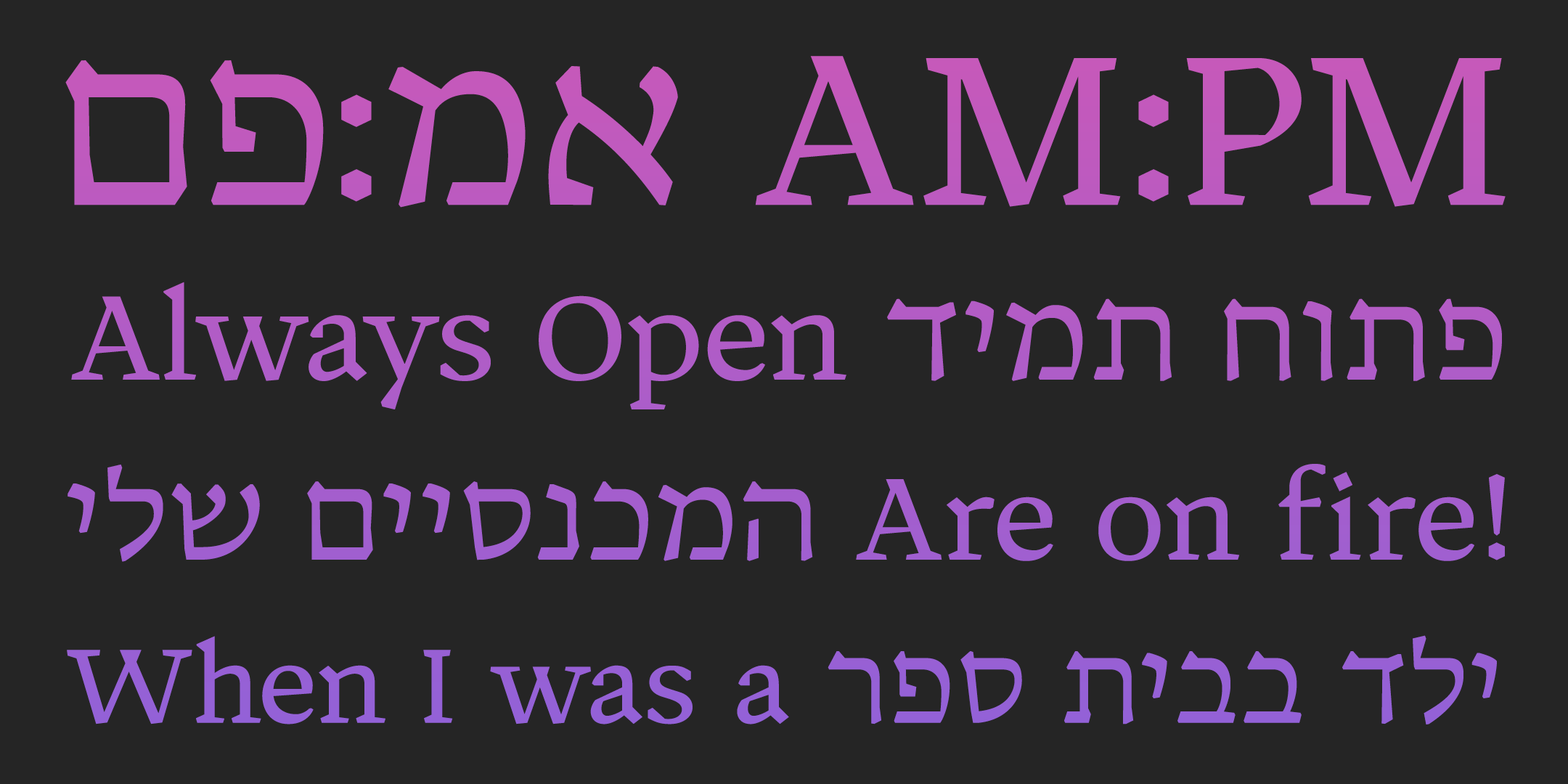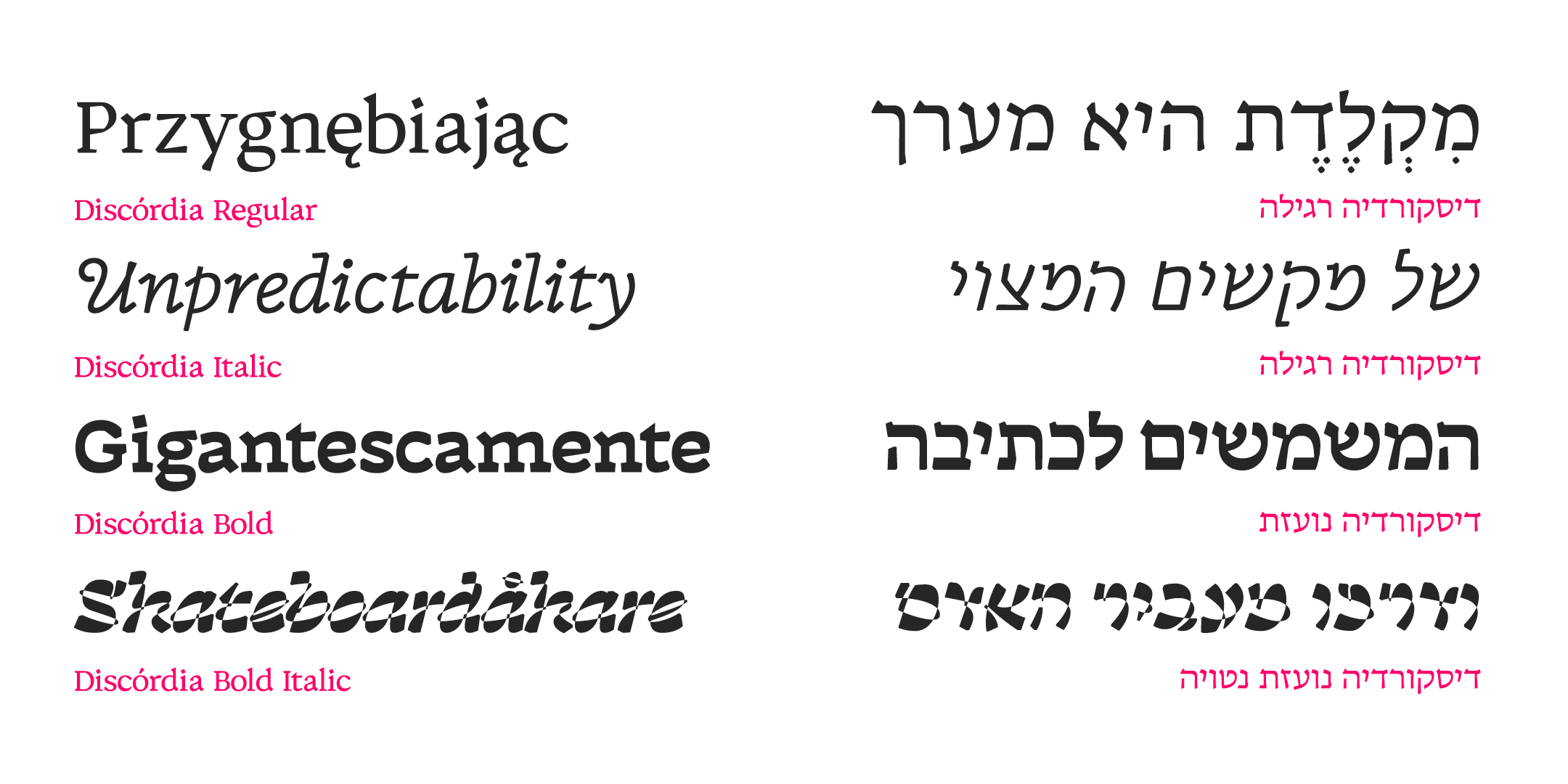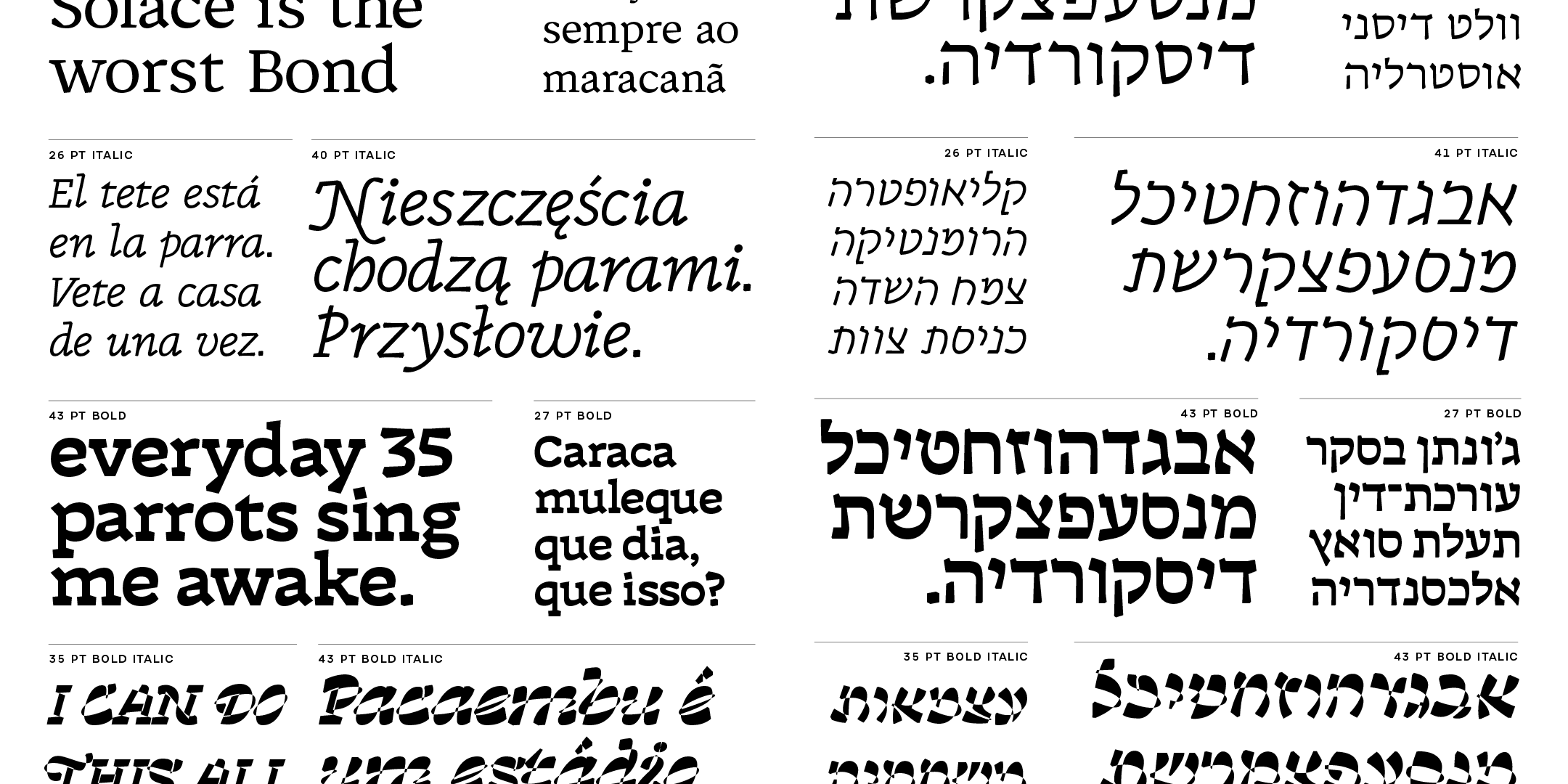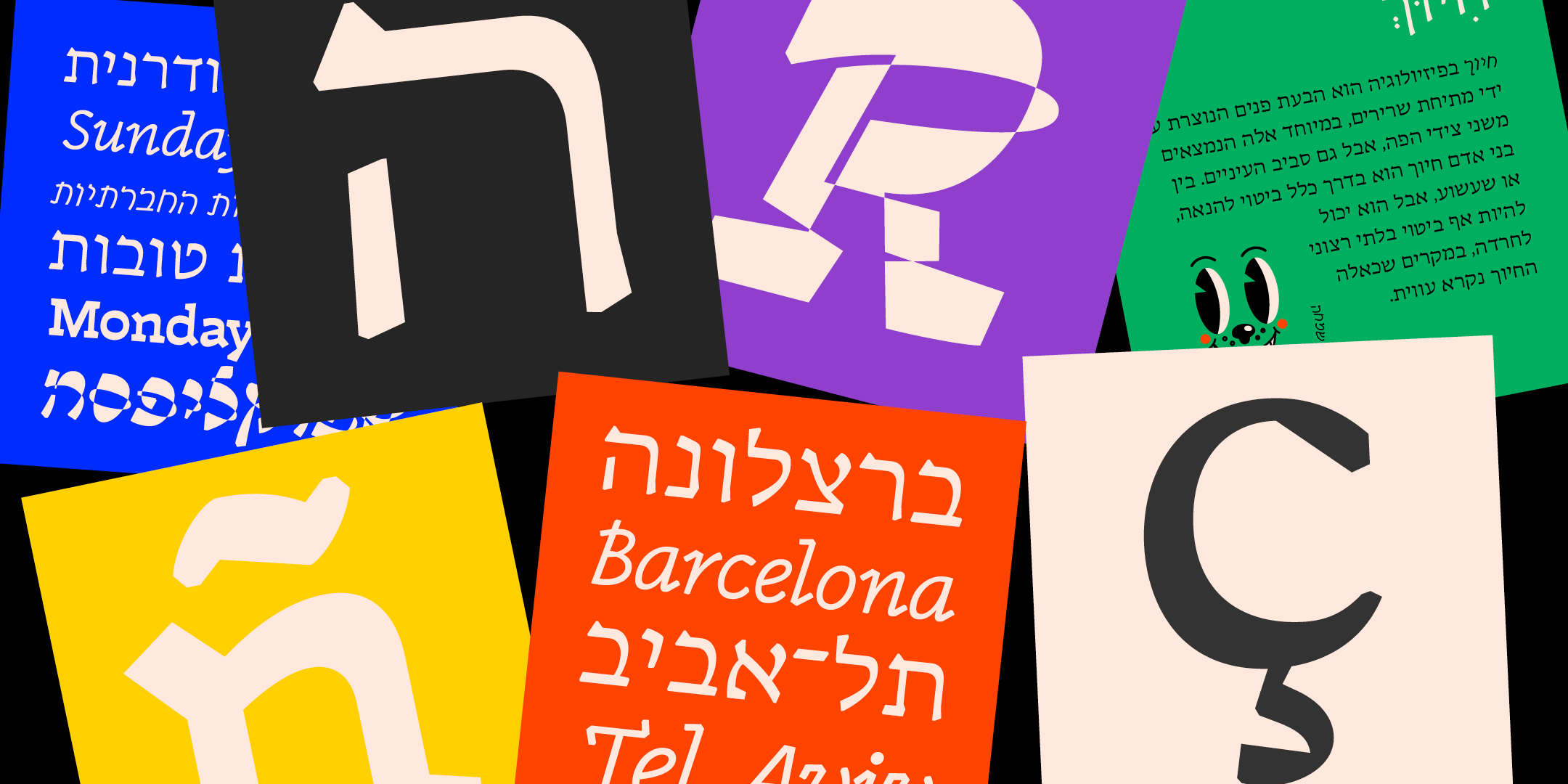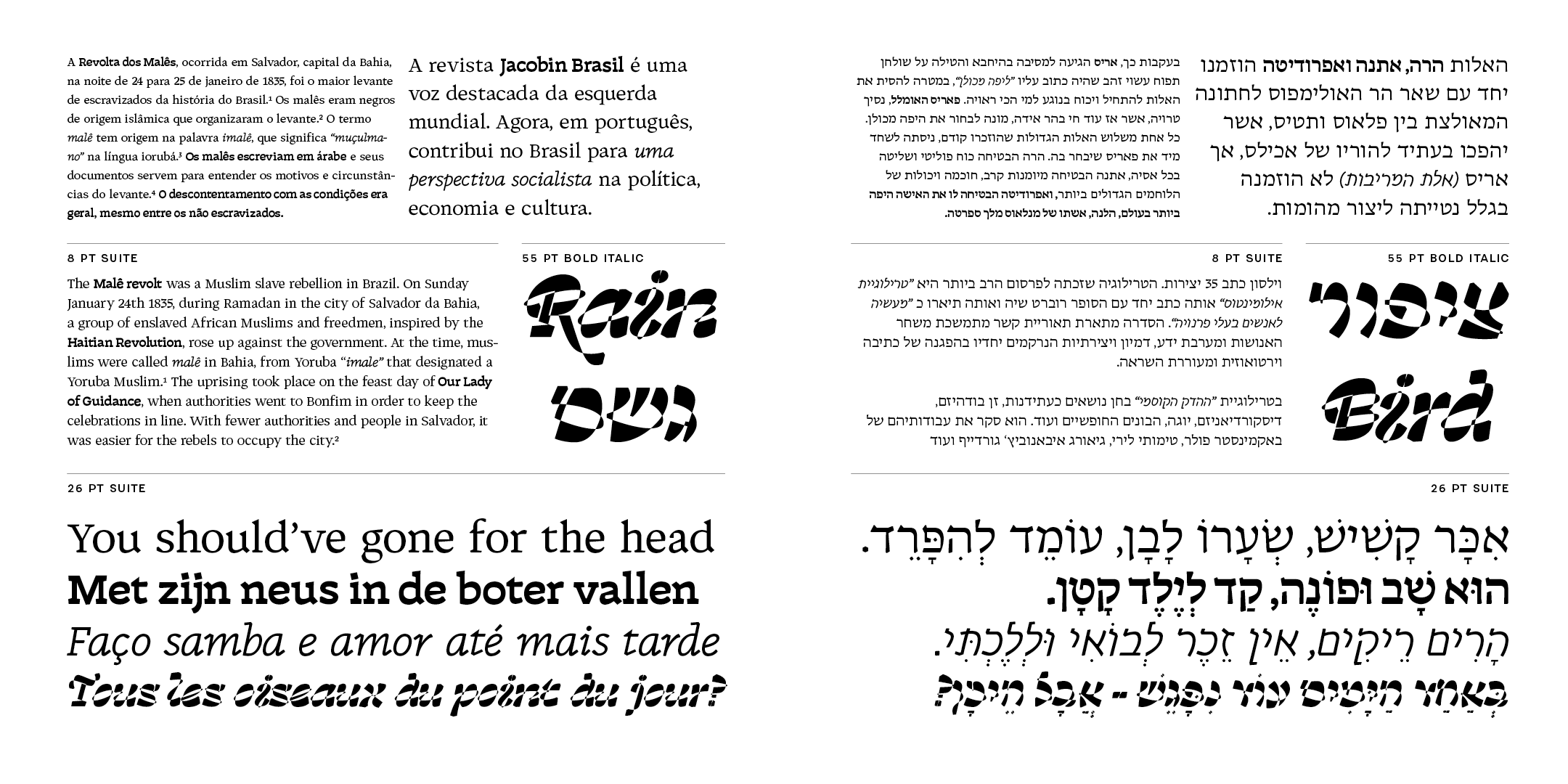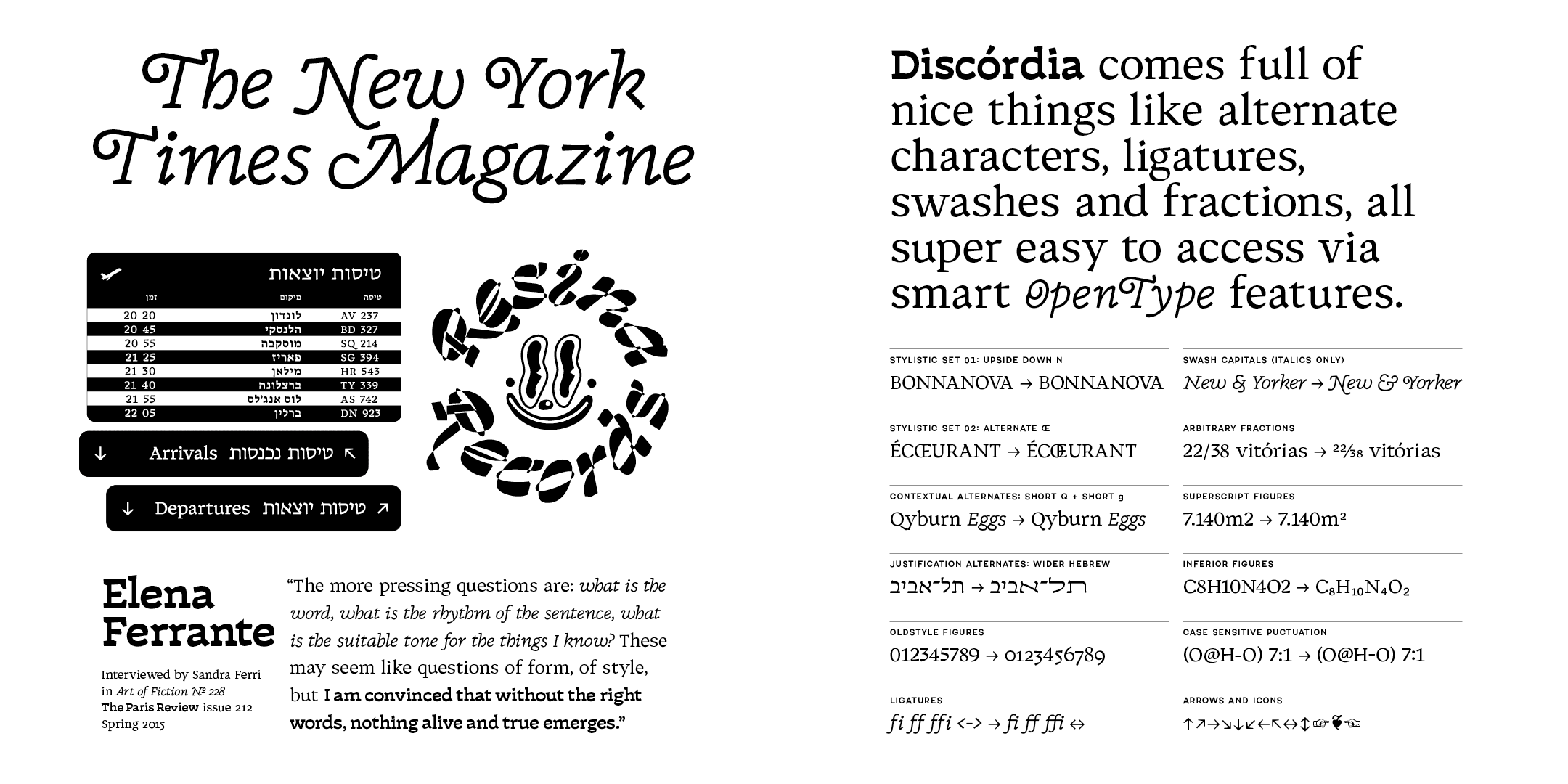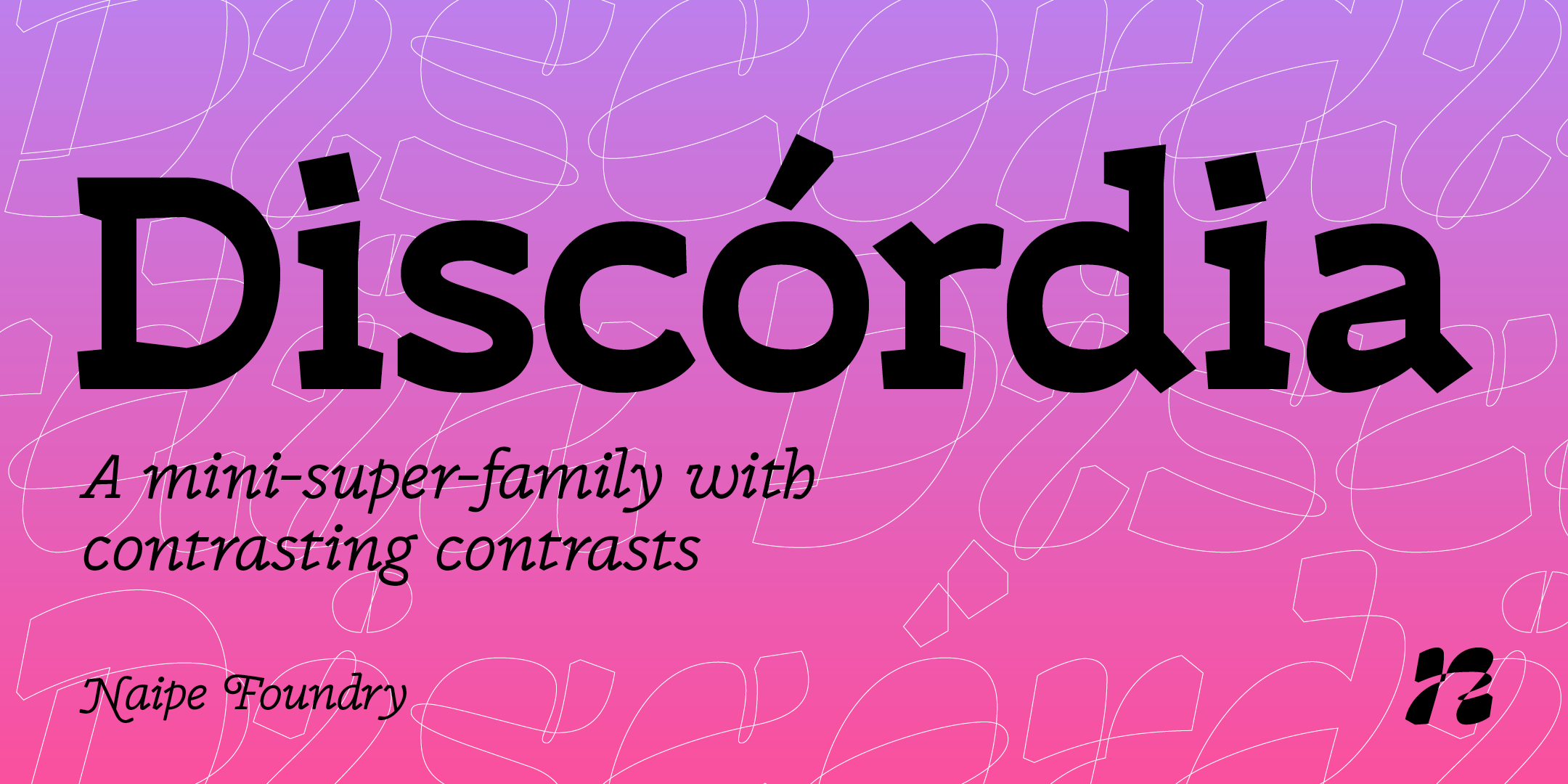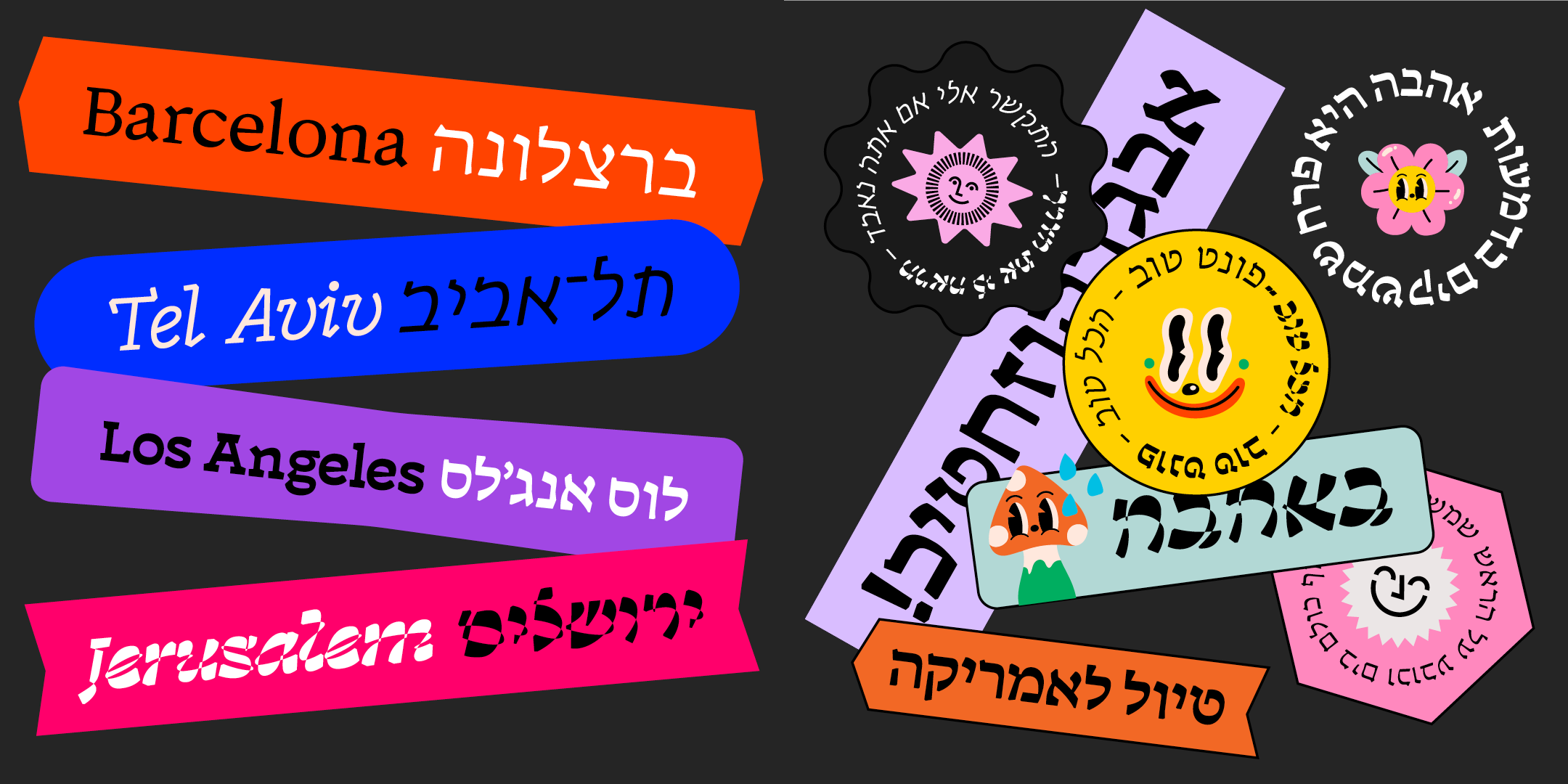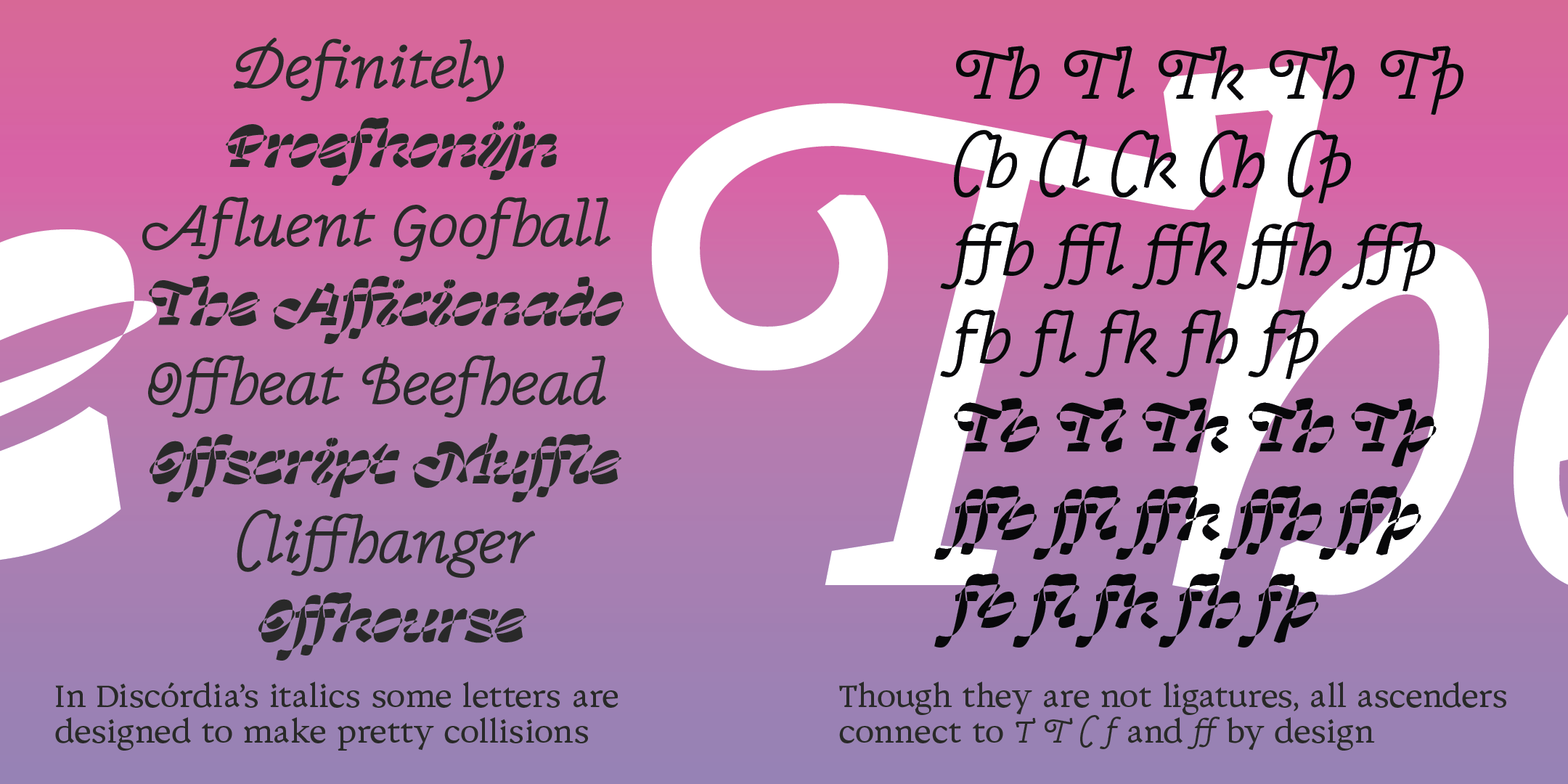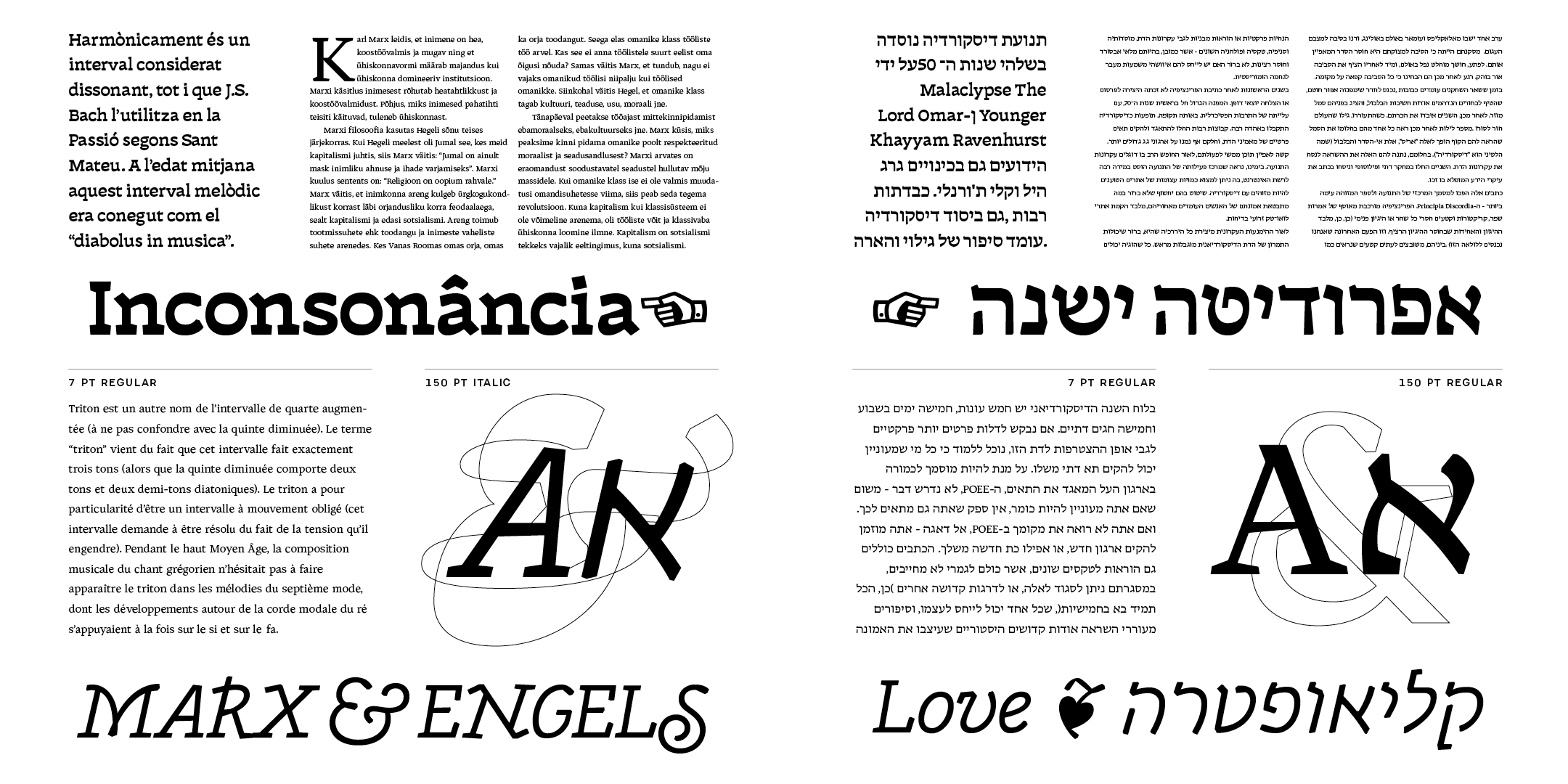
Discórdia
Discórdia is a type-family of contrasting contrasts. Each of the four members of the family has a different contrast type. Regular has broad-nib contrast, Bold has horizontal contrast, the Italic is monoline, which means it has no apparent contrast, and Bold Italic is... Well, it’s probably best if see for yourself.
These different design structures were fine-tuned to work well together in the same line, creating emphasis and hierarchy through a mini-super-family that groups a wedge-serif Regular, a slab-serif Bold, a sans-serif-ish Italic and a twisted Bold Italic.
This mini-super-family covers Latin and Hebrew, and comes packed with features like alternate characters, swash capitals, oldstyle numbers, icons, fractions and much more.